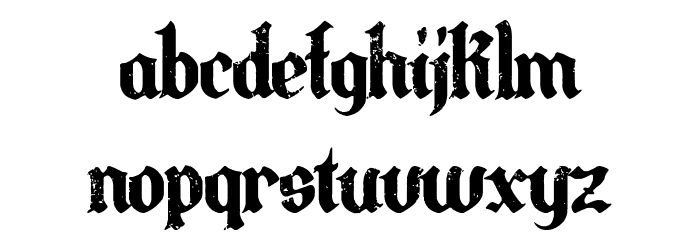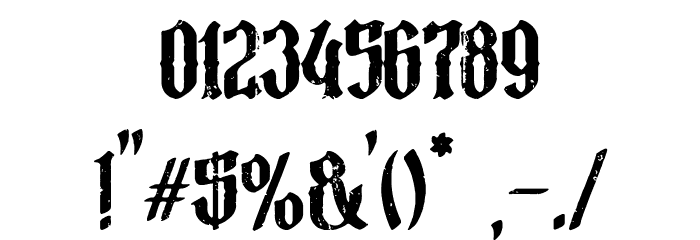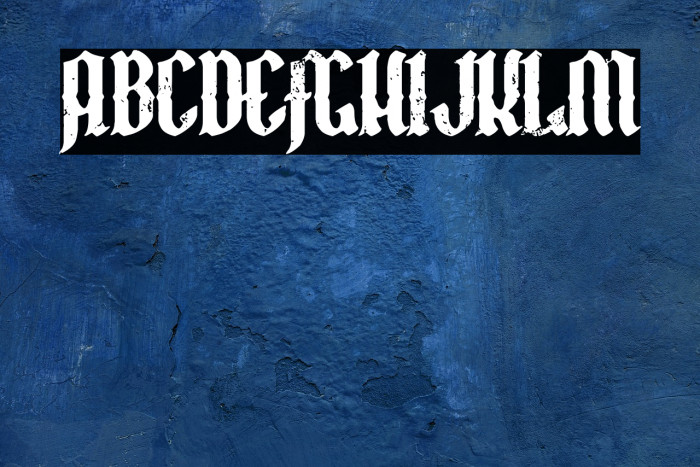
Los Guripas Font
This font features a bold and distressed blackletter style, reminiscent of traditional Gothic script with a modern twist. The characters are heavily stylized with sharp, angular lines and a textured appearance that gives them a worn, vintage feel. The uppercase and lowercase letters maintain a consistent design, with the uppercase being more pronounced and the lowercase slightly more compact. Numbers and special characters follow the same aesthetic, ensuring a cohesive look across all text. The font's unique style makes it ideal for projects that require a dramatic and historical touch.
A bold, distressed blackletter font with a vintage, Gothic style.
- Font: Los Guripas
- Proposed Projects: Perfect for vintage posters, historical themed events, book covers, and branding that requires a dramatic flair.
- Category: Blackletter
- Overall Style: Vintage